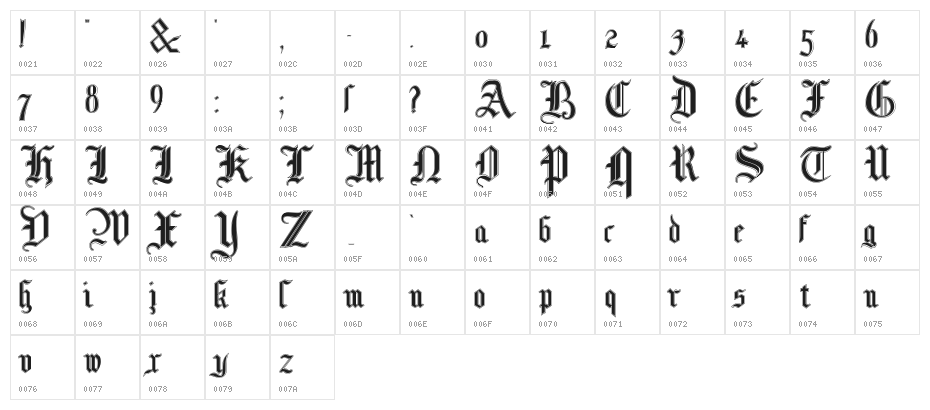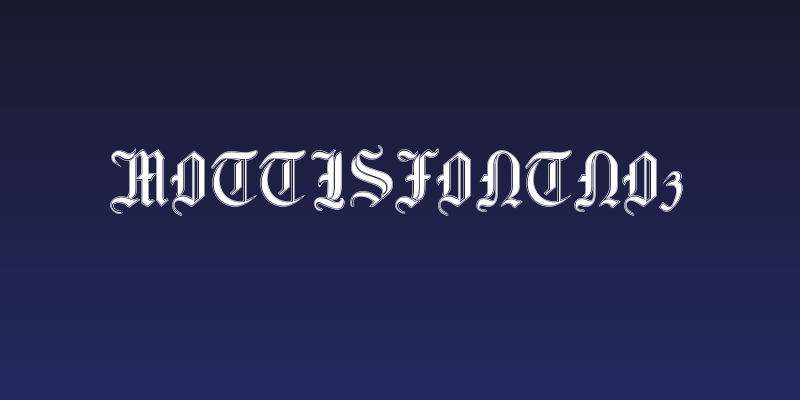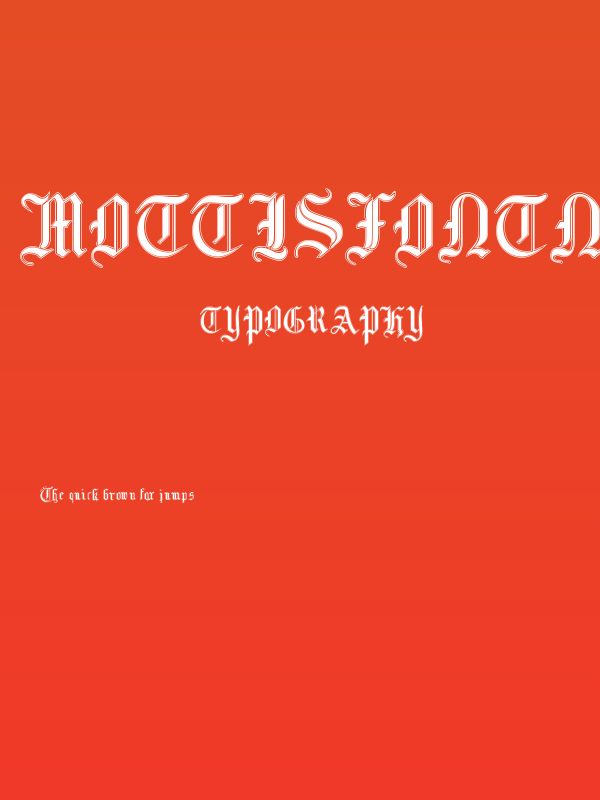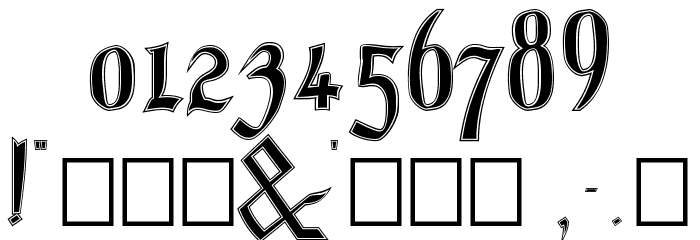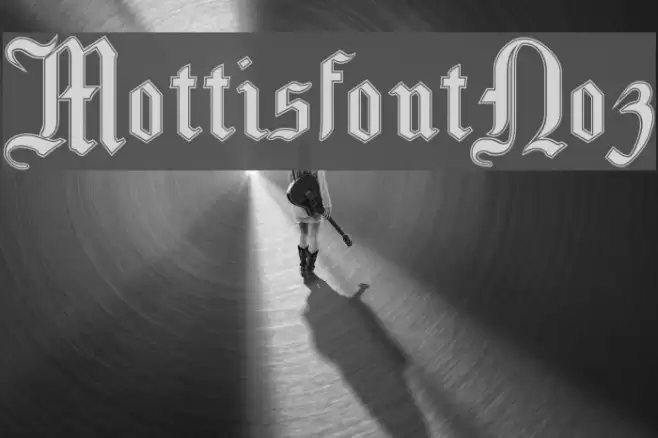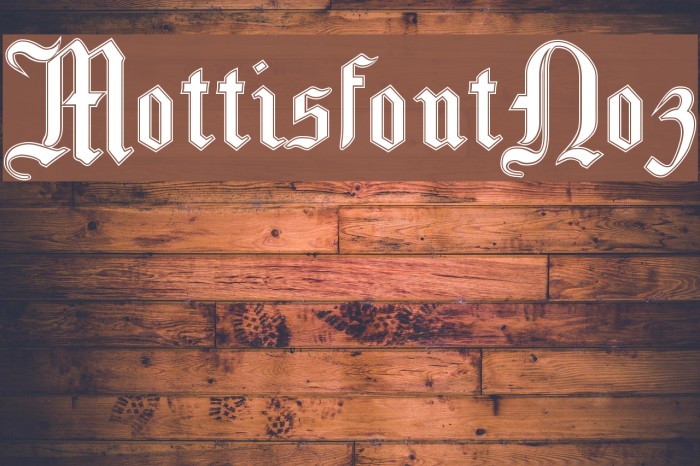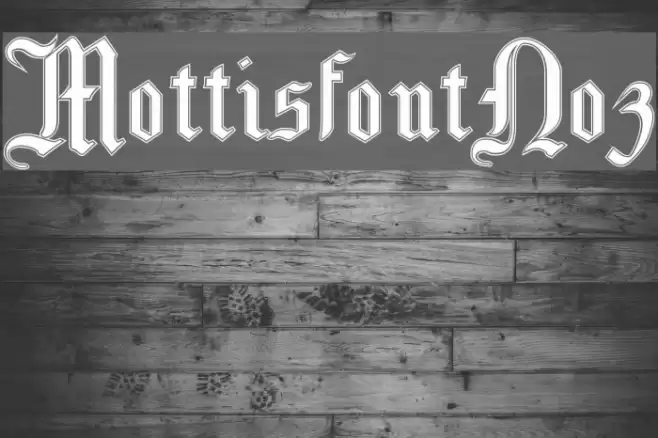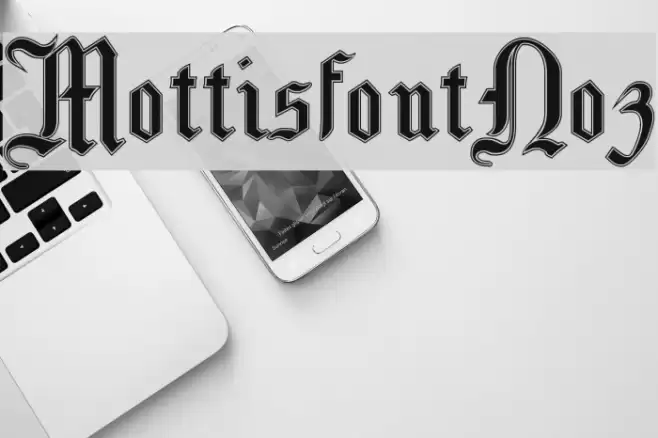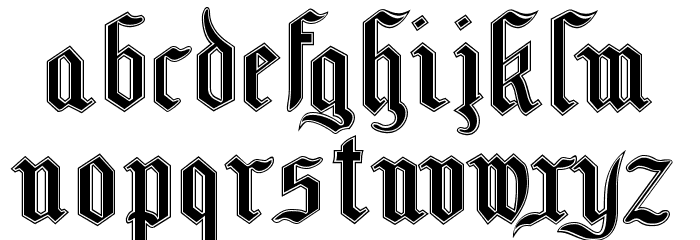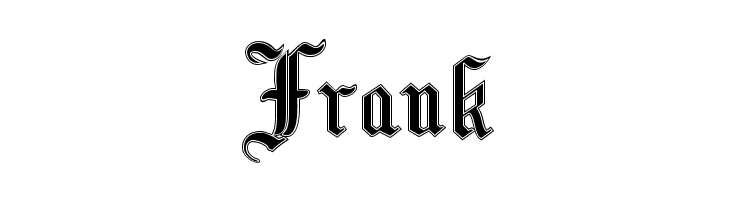
MottisfontNo3 Font
MottisfontNo3 Description
This font exhibits a classic blackletter style, characterized by its intricate and ornate design. The uppercase letters feature sharp, angular lines with decorative flourishes, giving them a medieval and gothic appearance. The lowercase letters maintain the same level of detail, with unique curves and strokes that enhance the overall aesthetic. The numerals are bold and consistent with the style, providing a cohesive look across all characters. Special characters are equally detailed, fitting seamlessly into the font's design. This font is ideal for projects that require a historical or traditional feel, such as invitations, certificates, or branding for vintage-themed products.
| Overall Style | Vintage |
| Use Case | Logos, Headlines, Decorative text |
| Proposed Projects | Ideal for vintage-themed branding, historical documents, invitations, and certificates. |